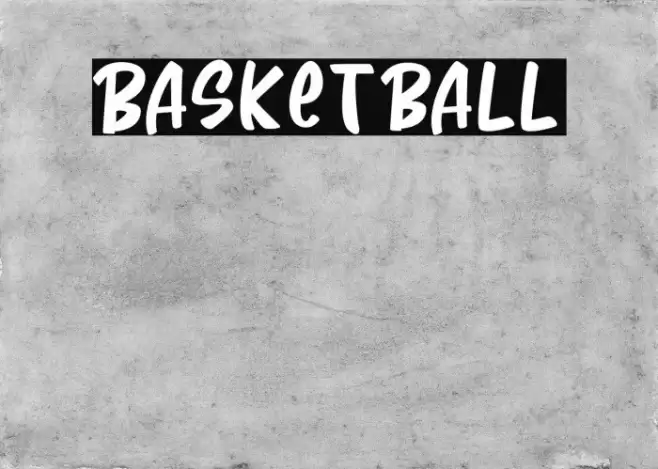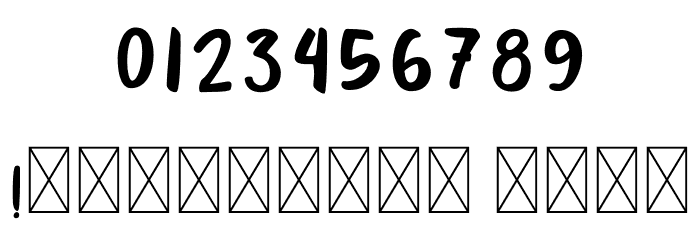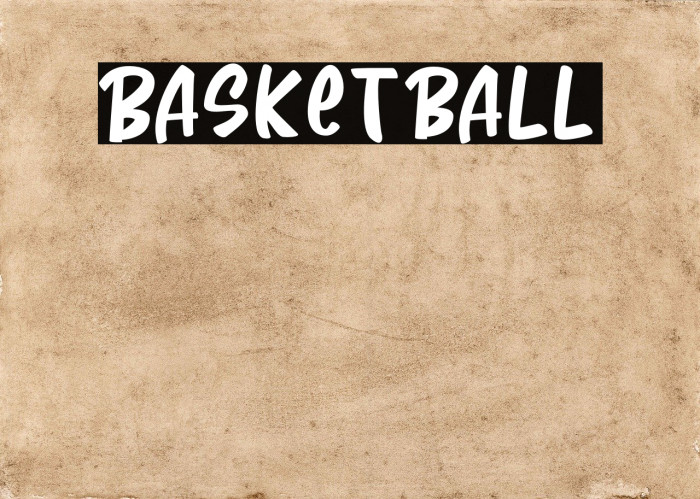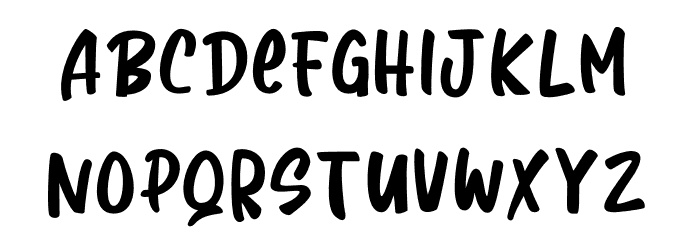
Basketball Font
Basketball Description
This font features a bold, playful style with a handwritten appearance. The letters are slightly slanted, giving a dynamic and energetic feel. The strokes are thick and rounded, contributing to a friendly and approachable look. The uppercase and lowercase letters maintain a consistent style, with a slight variation in size and form that enhances the casual aesthetic. The numbers follow the same design principles, ensuring uniformity across all characters. The font lacks special characters, focusing primarily on alphanumeric characters.
A bold, playful handwritten font with thick, rounded strokes from Comic fonts.
- Proposed Projects: Ideal for projects that require a fun and informal touch, such as children's books, playful branding, or casual invitations.
- Overall Style: Playful
- Use Case: Logos, Headlines, Informal Text